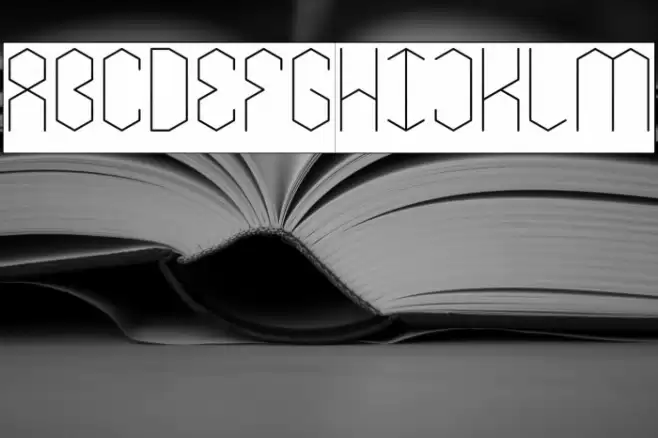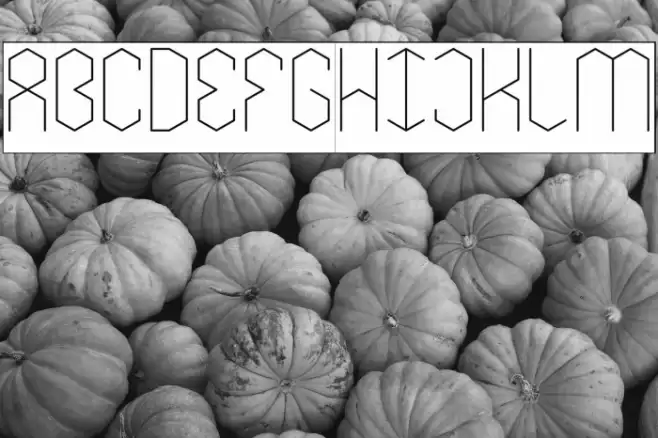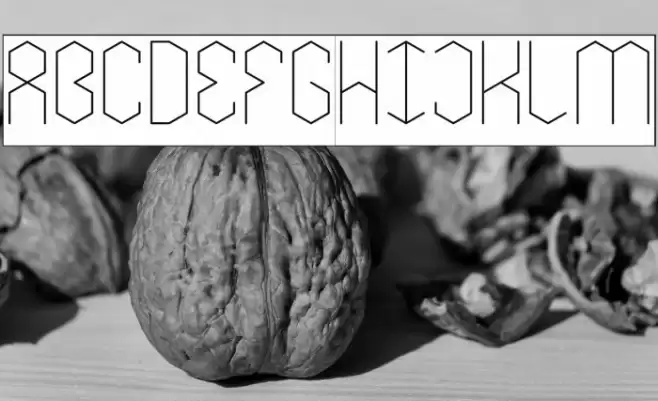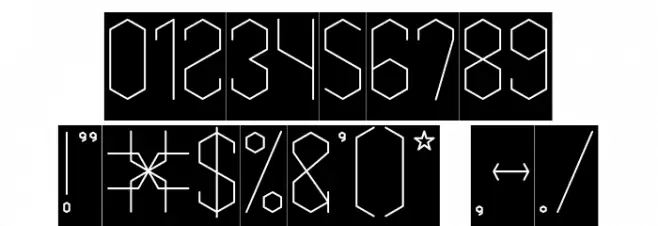
LOIS CESARANO-Inverse Font
LOIS CESARANO-Inverse Description
This font features a unique geometric design with angular, interconnected lines forming each character. The letters and numbers are constructed with a series of straight lines and angles, giving them a futuristic and technical appearance. The uppercase and lowercase letters maintain a consistent style, with the lowercase being slightly smaller in scale. The numbers and special characters follow the same design principles, ensuring uniformity across the font. The overall aesthetic is modern and minimalistic, with a focus on clean lines and sharp angles.
A geometric, angular font with a futuristic and technical style from Uncategorized fonts.
- Font: LOIS CESARANO-Inverse
- Proposed Projects: Ideal for technology branding, sci-fi themed projects, digital art, and modern graphic design.